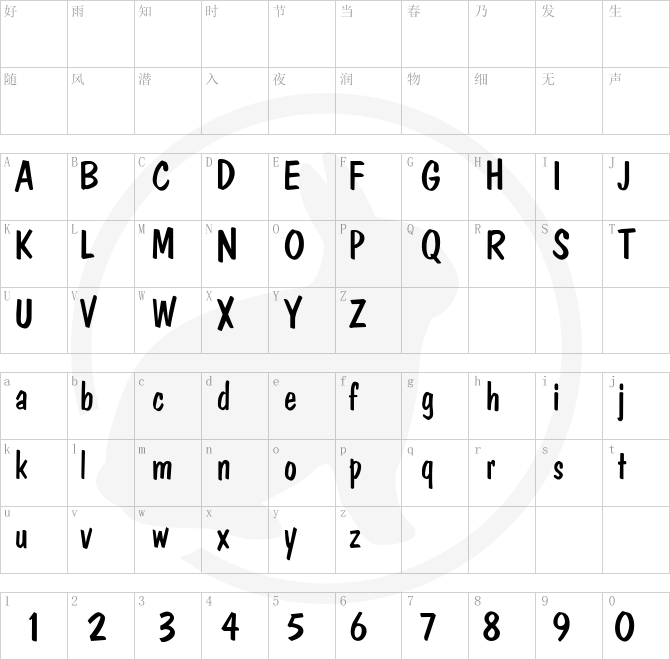
- Font Name:SabrinaBecker
SabrinaBecker.ttf is a very beautiful artistic font, SabrinaBecker.ttf is widely used in the design and printing of various books and pictures,SabrinaBecker.ttf has a strong visual impact,SabrinaBecker.ttf is a commonly used font in newspapers, magazines and books, and is used in posters, e-commerce Poster design, store design, logo design, font design and other fields.SabrinaBecker.